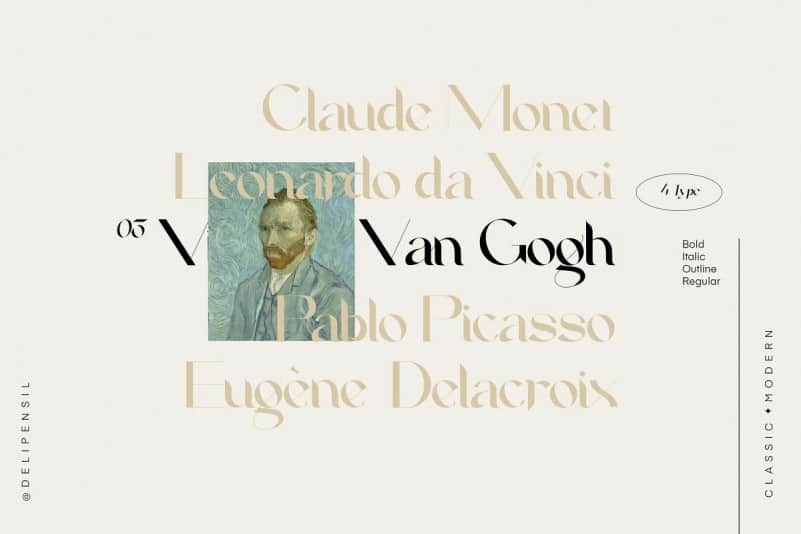
Agoka Serif Font
Agoka Serif Font is a classic ligature serif typeface created by delipensil with a collection of alternates and ligatures that will bring old-fashioned for your designs. Elegant beauty Serif font, clean and mindful , it combine in one font, use this font for anything beauty place for your logo, headline, cover book, magazine, website and many more.